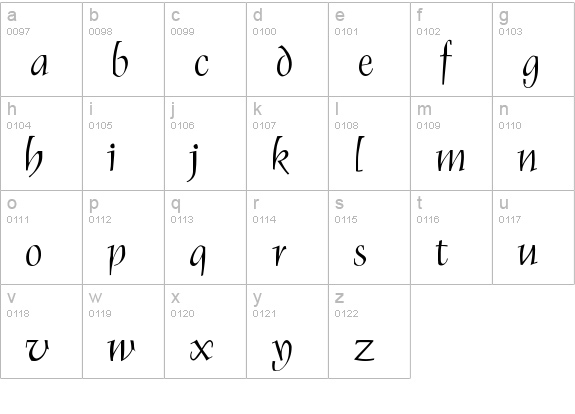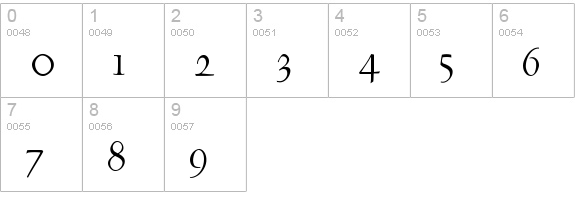
Renaiss-Italic is a distinctive, italic variant in the Renaiss typeface family \xE2\x80\x94 well suited to design and typography projects.
Renaiss-Italic font is a stunning addition to any typography collection. With its elegant and refined aesthetic, this font brings a touch of sophistication to any design project. The gracefully slanted letters create a sense of movement and flow, making Renaiss-Italic perfect for adding a touch of elegance to invitations, wedding stationery, or branding materials. This font is not only visually appealing, but it is also incredibly versatile. Whether you're working on a vintage-inspired project or a modern design, Renaiss-Italic adapts effortlessly to any style. Its timeless appeal ensures that it will remain a classic choice for years to come. One of the best features of Renaiss-Italic font is that it is freely available to download at FontsMarket.com. This means that you can enjoy the beauty and versatility of this font without any cost. With just a few clicks, you can enhance your designs with this exquisite font, adding a touch of class and sophistication. Don't miss out on the opportunity to elevate your design projects. Download Renaiss-Italic font for free at FontsMarket.com today and experience the beauty and versatility that this font has to offer.